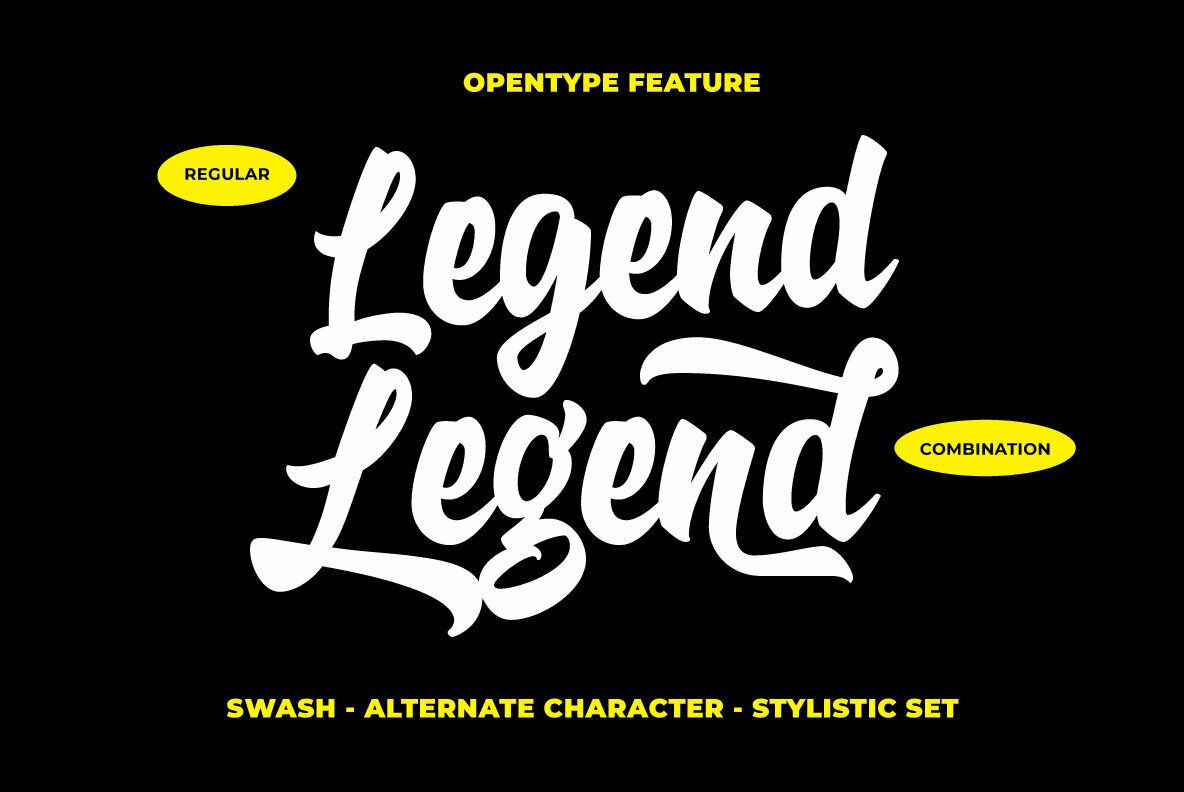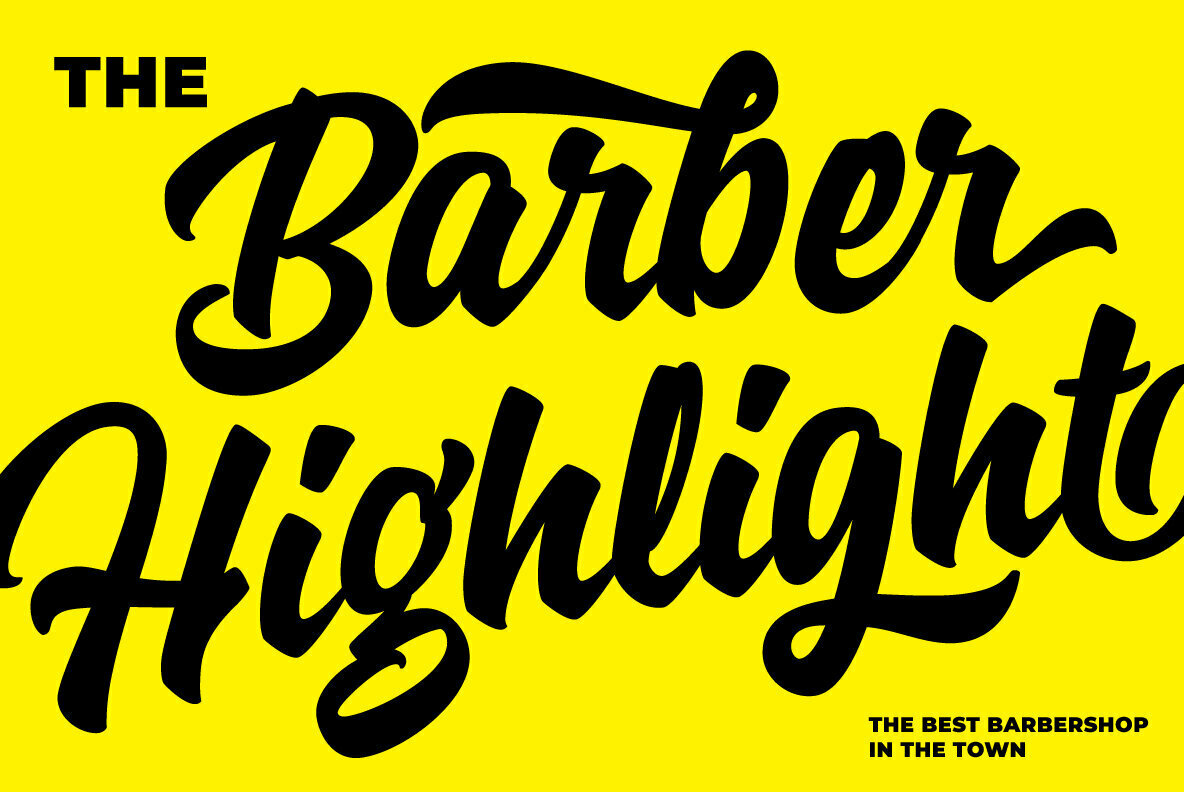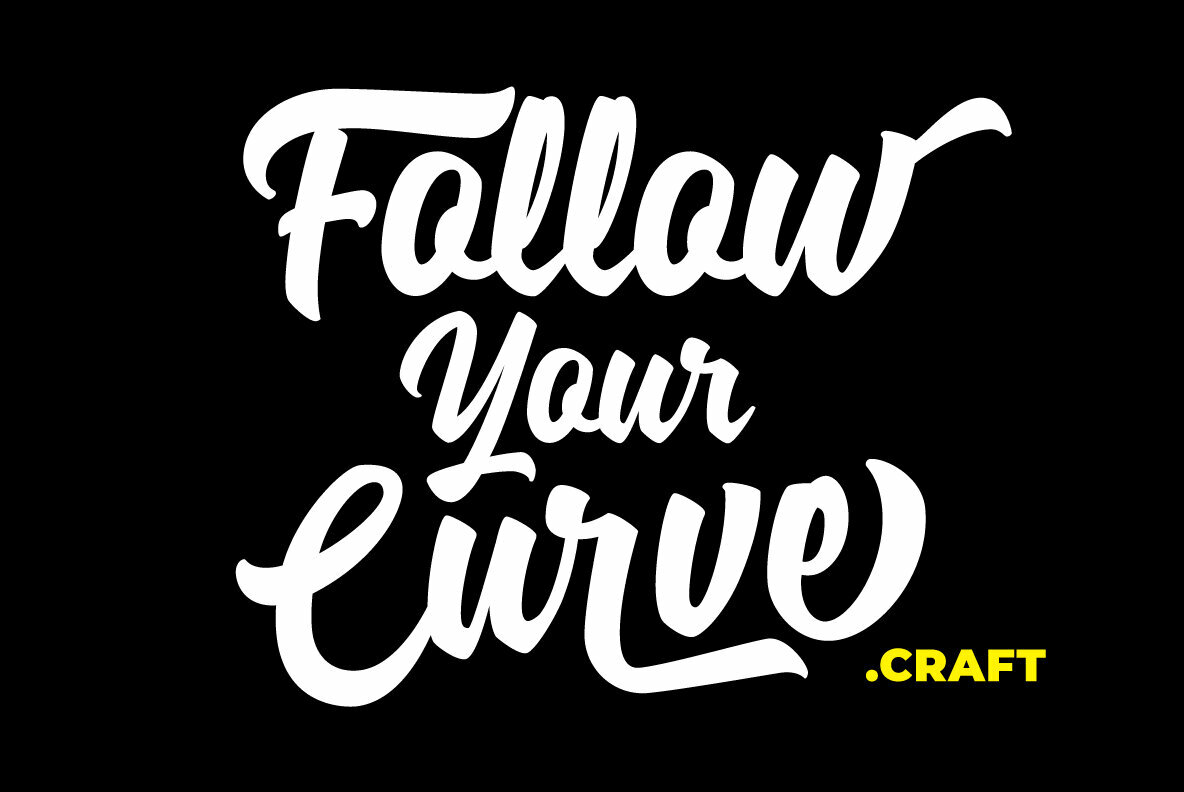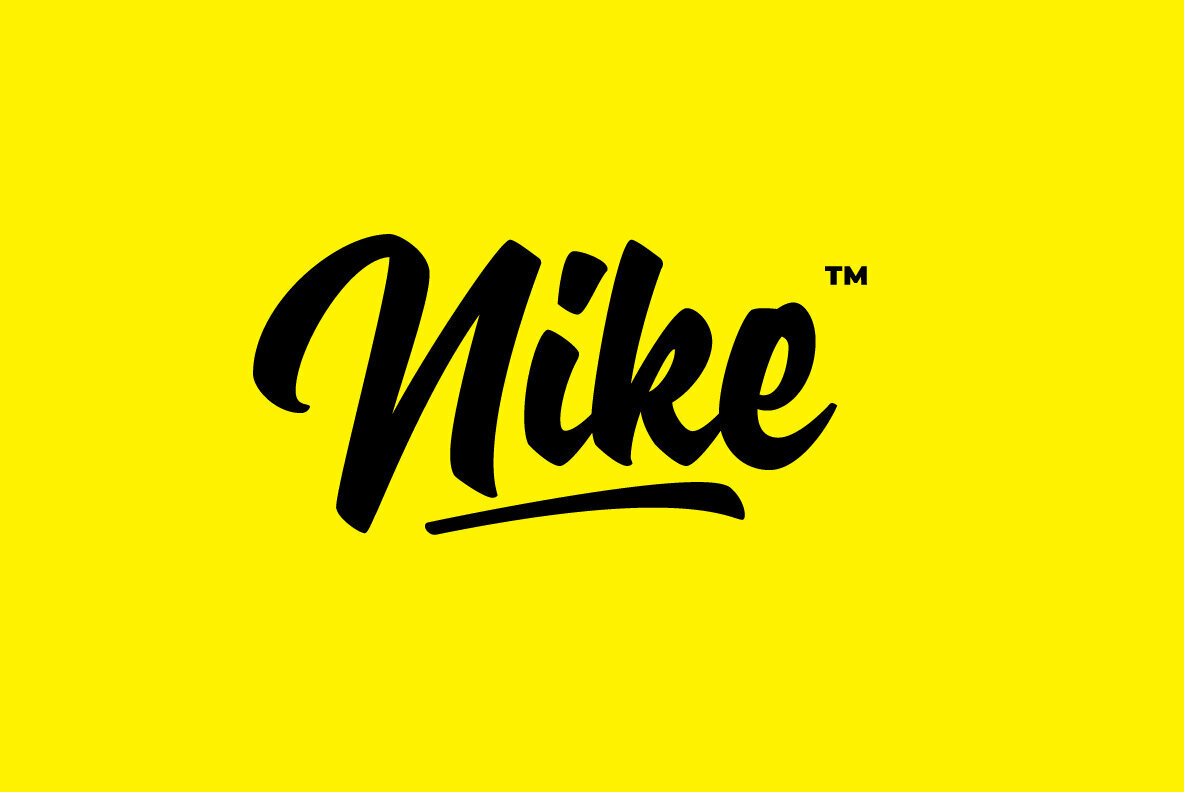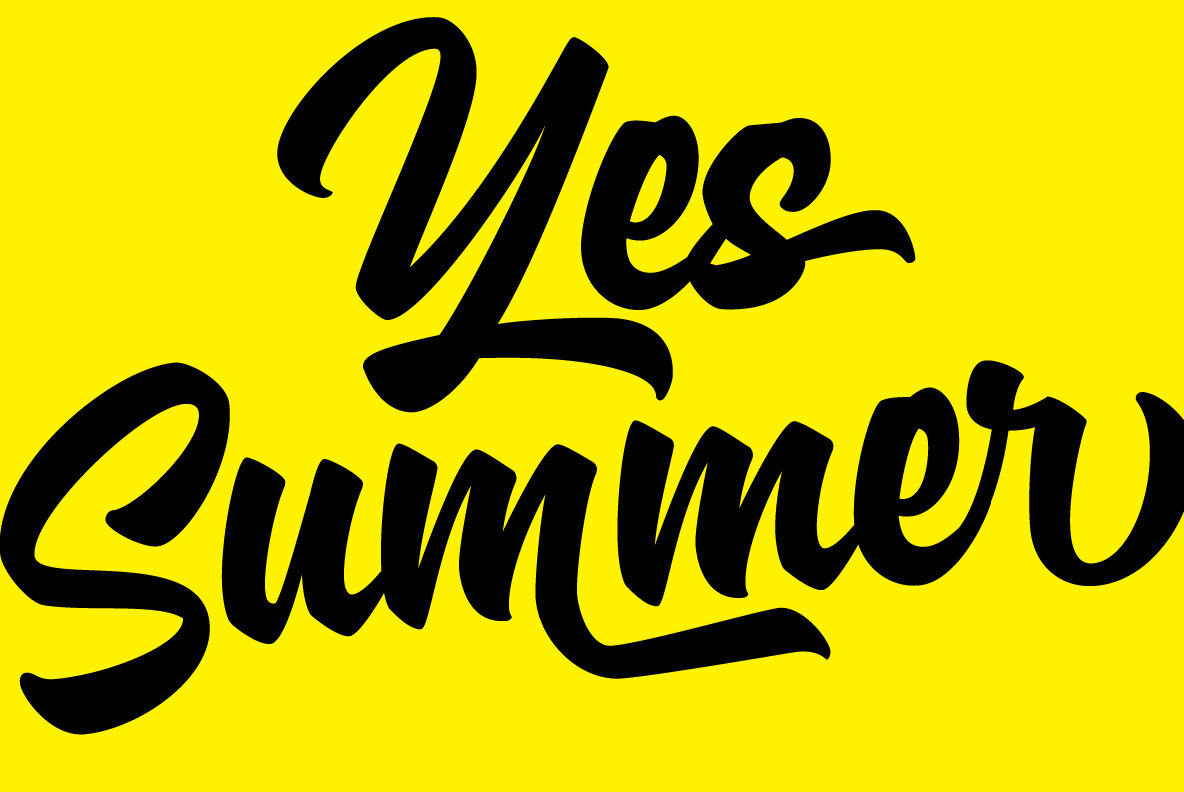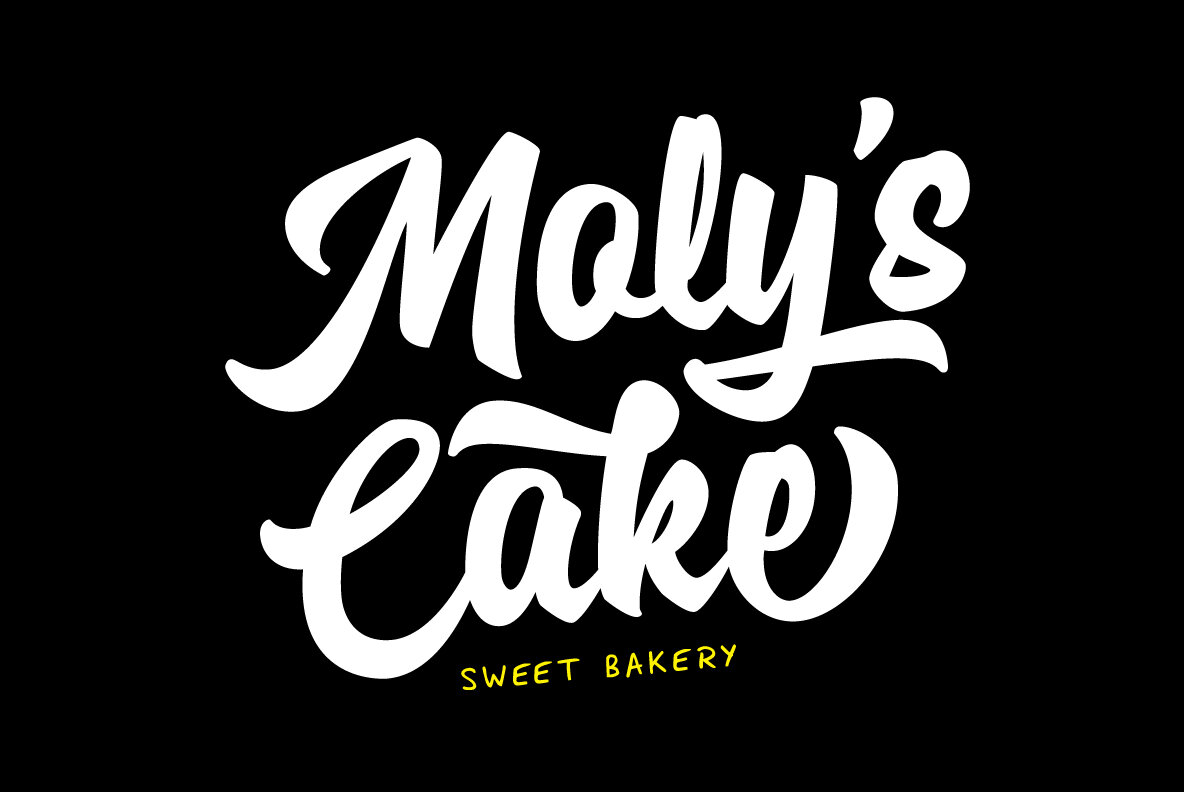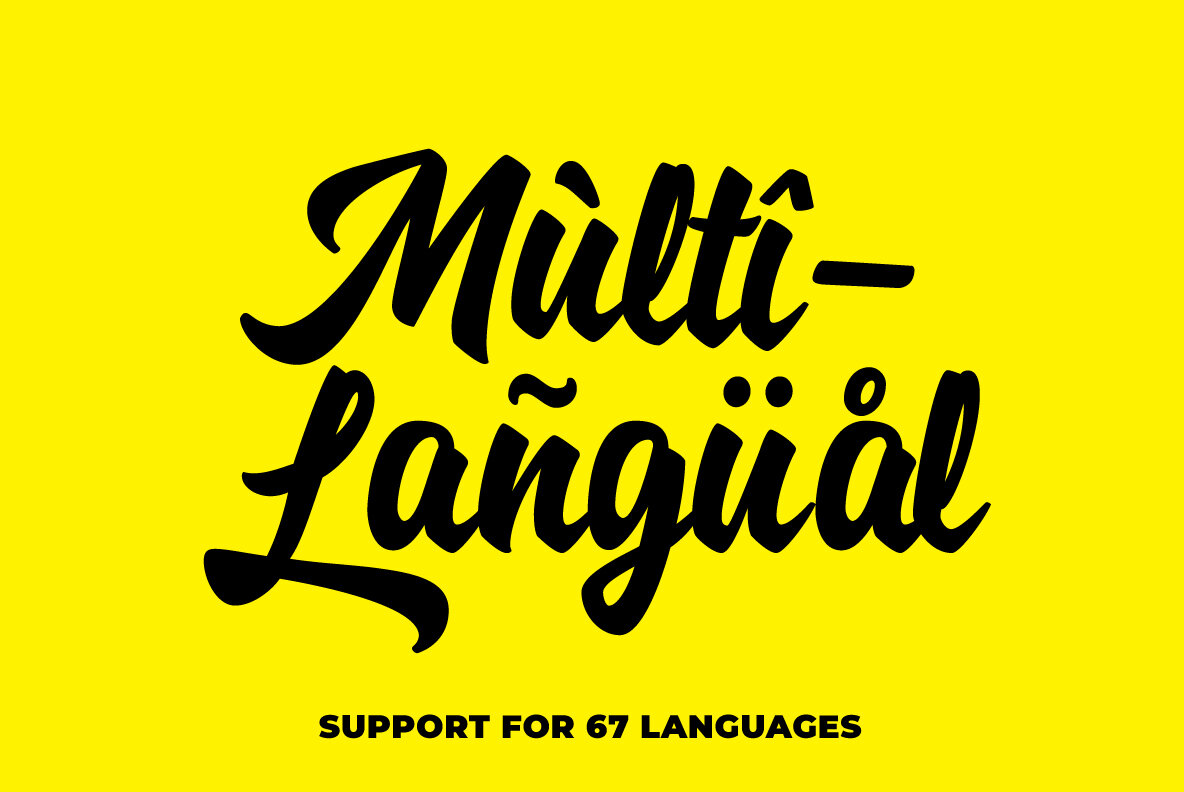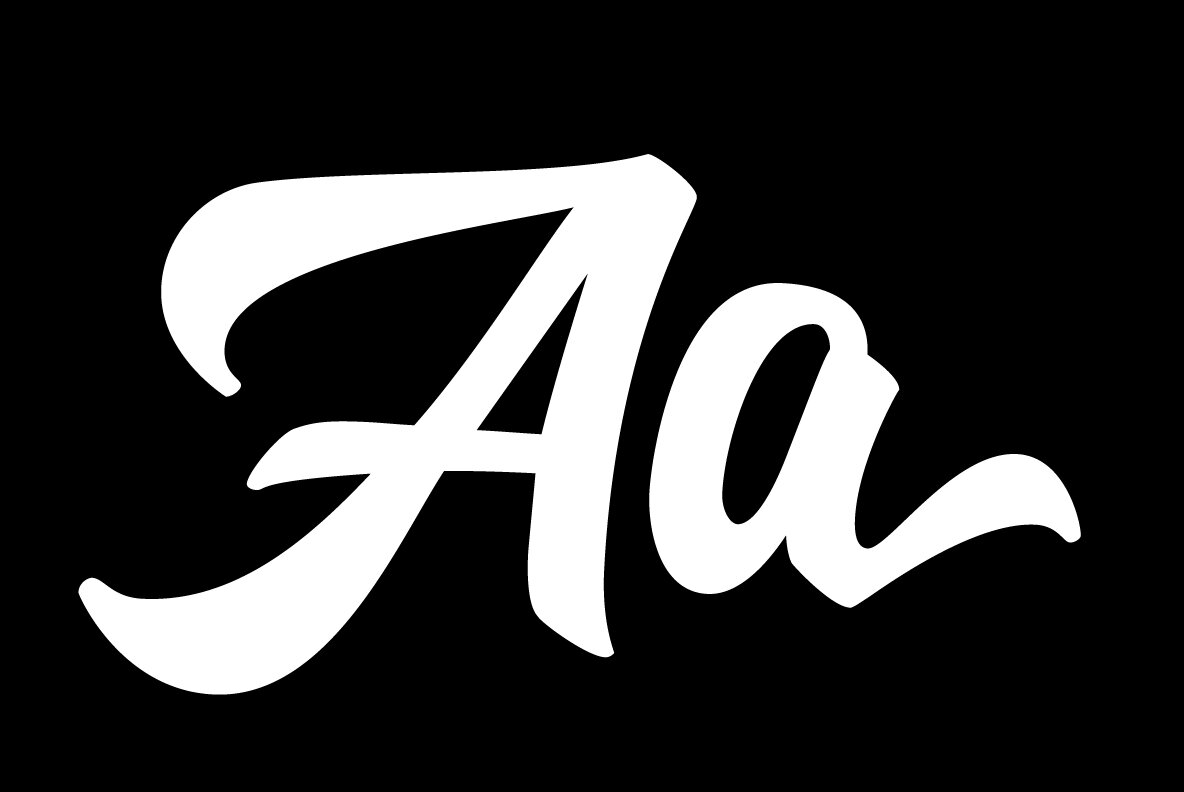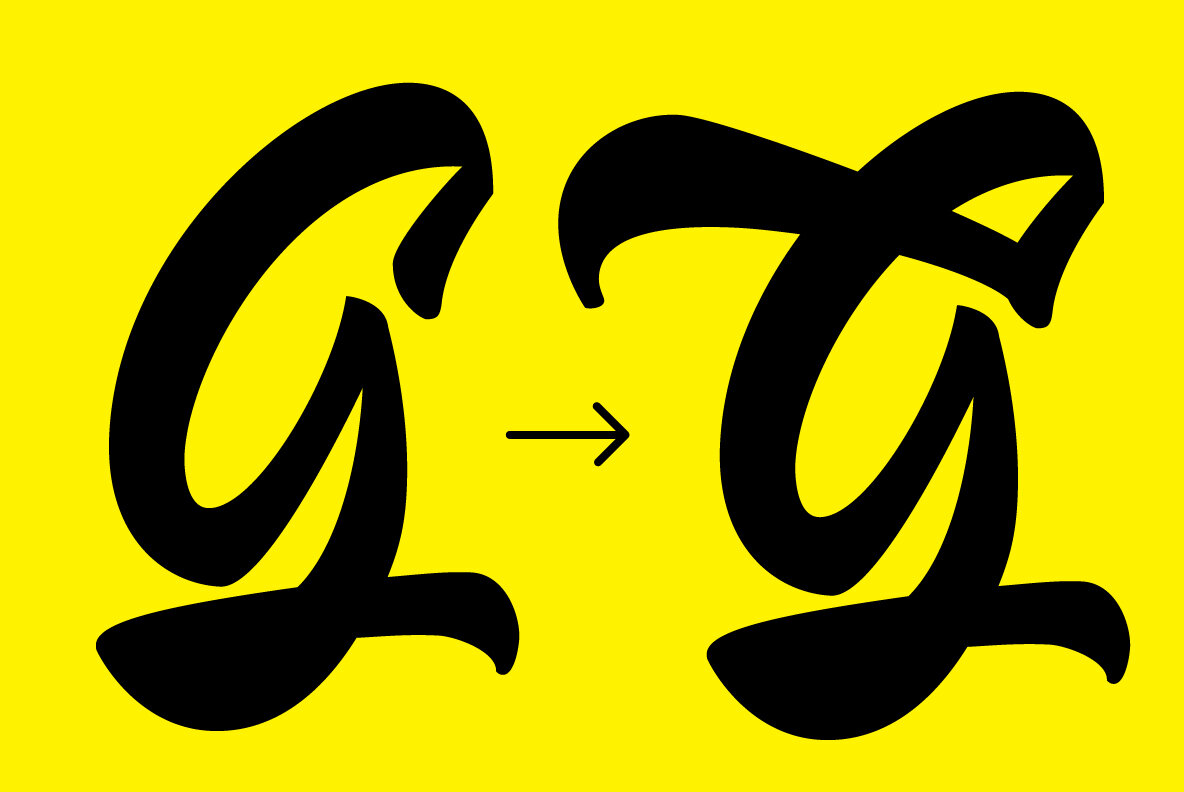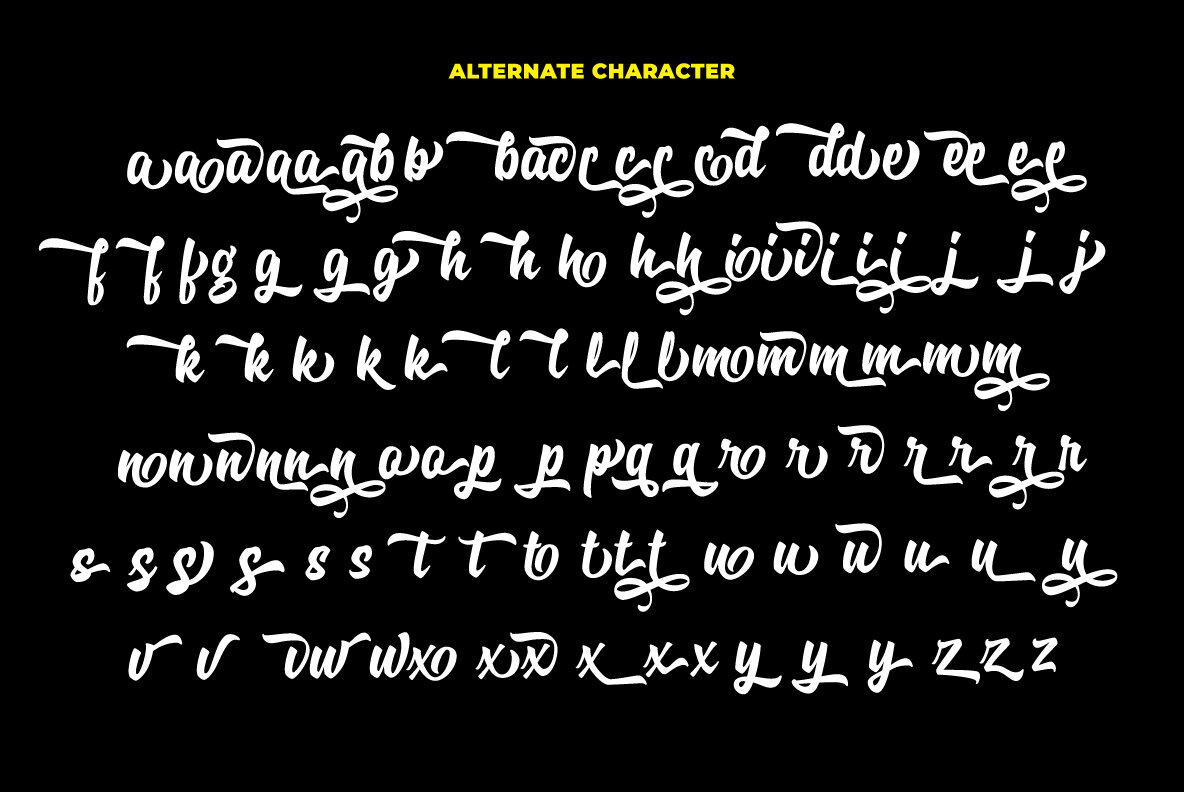
Specta: A Fusion of Retro and Hand Lettering Style
Specta is a typeface that balances the nostalgic flair of retro design with the expressive strokes of hand lettering. Each curve is crafted with a unique touch, promising to add a personal imprint to your creative projects. Its lively, bouncy baseline brings vibrancy and movement, making it a versatile choice for a range of design applications.
• Versatile Use – Perfect for logos, handwritten quotes, and product packaging.
• Bonus Swash Set – Includes additional swashes to enhance your designs.
• Paired Marker Font – Complimentary marker font for added creativity.